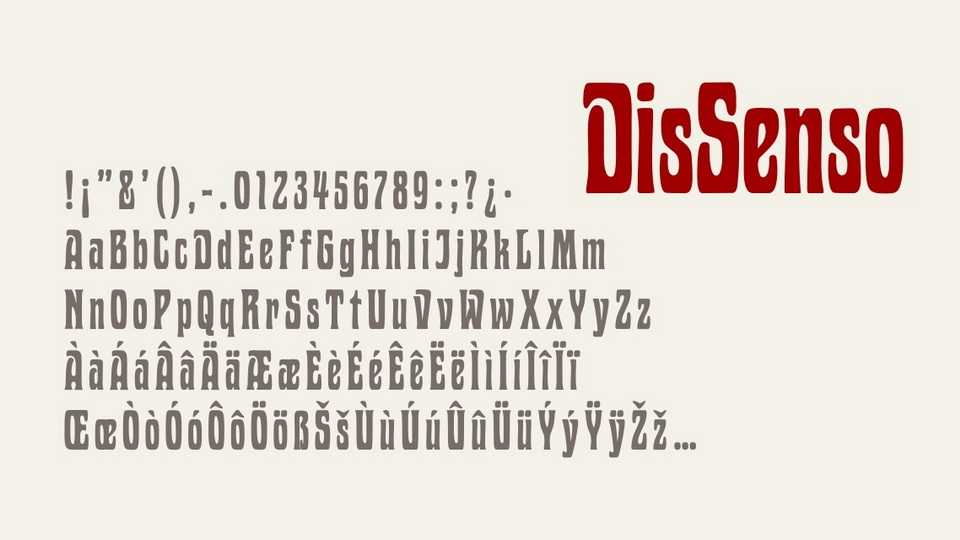
Download DisSenso font, a vintage typeface based on a type popular at the beginning of the twentieth century, especially in Germany and distributed under various names.
Designer: Michele Casanova